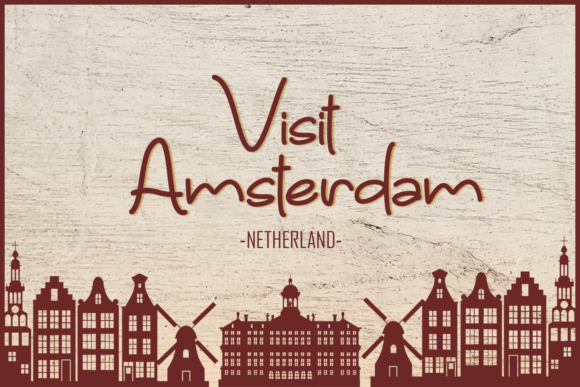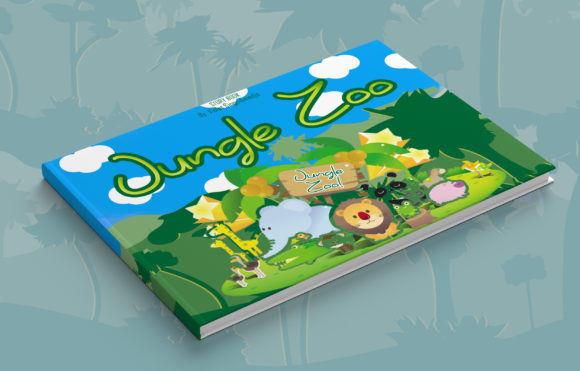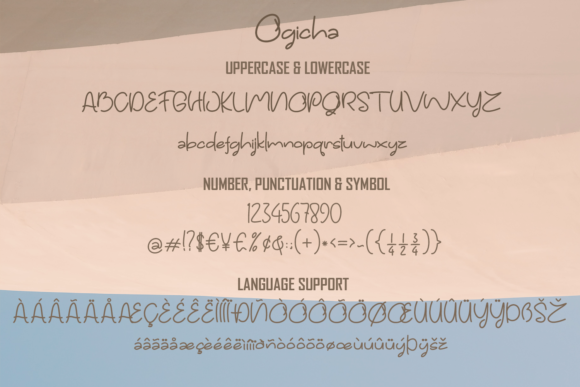
Introduction to Ogicha Font
Ogicha is a sweet handwritten font.
It’s perfect for branding materials, design logos, posters, quotes, brochures, flyers, shirt designs, printing, book covers and more .
Key Features of Ogicha Font
Why Choose Ogicha Font?
Ogicha Font offers exceptional quality and versatility, making it a valuable addition to your design toolkit. Whether you’re creating for personal projects or commercial use, Ogicha Font delivers professional results.